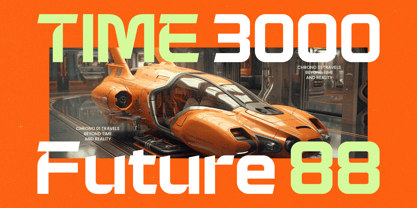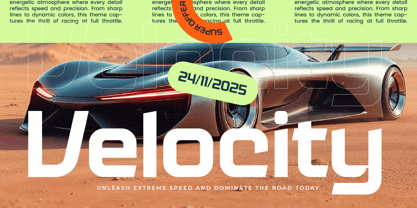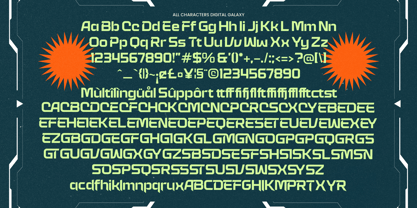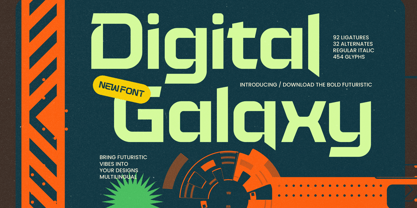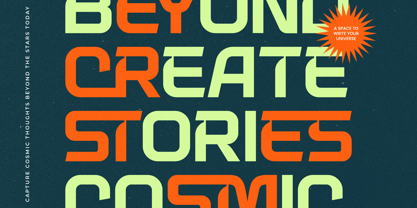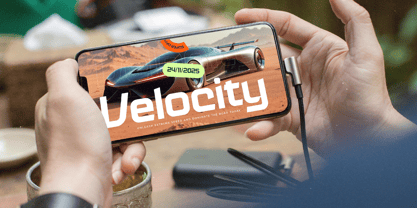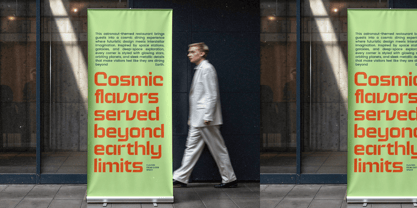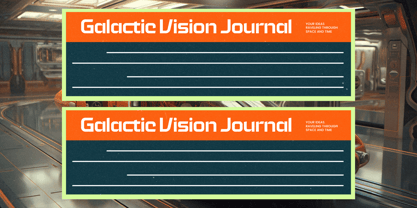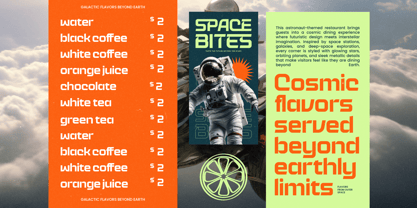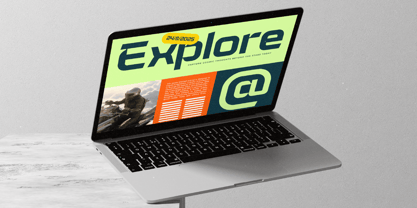
Digital Galaxy
Die Schriftfamilie Digital Galaxy wurde von Heru Utama Putra entworfen und von Timelesstype Studio veröffentlicht. Digital Galaxy enthält 2 Stile und Familienpaketoptionen. Mehr über diese Familie
Digital Galaxy is a bold futuristic display font crafted with sharp geometric cuts, angular silhouettes, and retro-tech energy that instantly elevates any sci-fi themed design. Built for digital interfaces, gaming graphics, tech branding, and cyberpunk visuals, this typeface delivers a strong mechanical presence through its structured letterforms and high-impact aesthetic. Packed with 92 ligatures, 32 alternates, and 454 glyphs across Regular and Italic styles, Digital Galaxy provides a versatile toolkit for designers seeking a modern, high-tech identity with a distinct space-age personality.